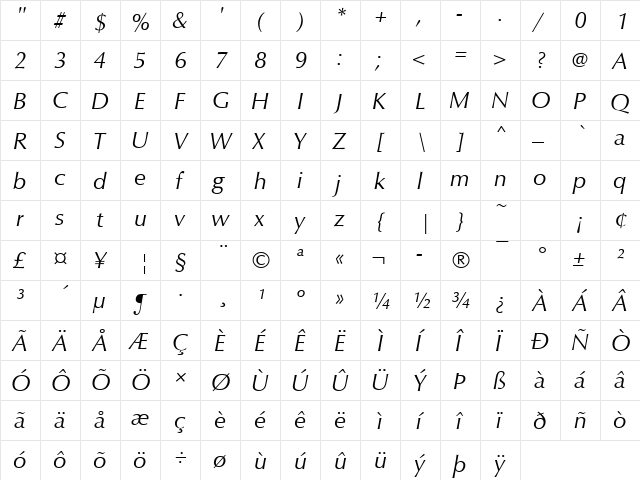
Classico Becker Italic Font Preview
Classico Becker Italic
Classico Becker Italic Font Details
Design Context for Classico Becker Typeface
Classico Becker has the warm character of retro typography — evoking diners, record sleeves, and the golden age of print advertising. Its italic angle brings a sense of urgency and motion to the letterforms.
Ideal for diner signage, record shop branding, 70s/80s-themed projects, and heritage product labels.
Font Pairing: Combine Classico Becker with a simple slab or neutral sans — period-accurate companions reinforce the vintage feel without competing for attention.
Pro Tip: Lean into Classico Becker's period character by pairing it with aged paper textures, muted colour palettes, and vintage illustration styles.